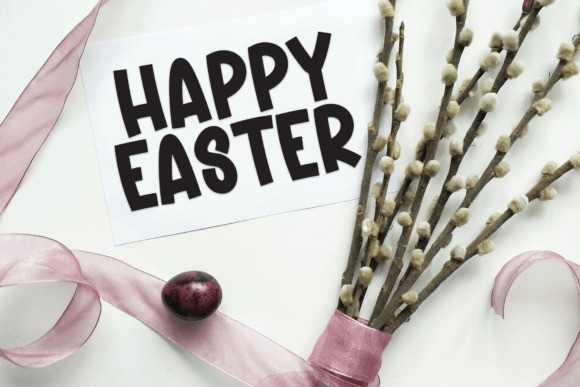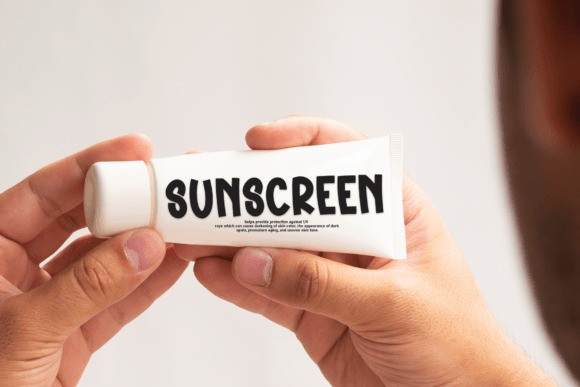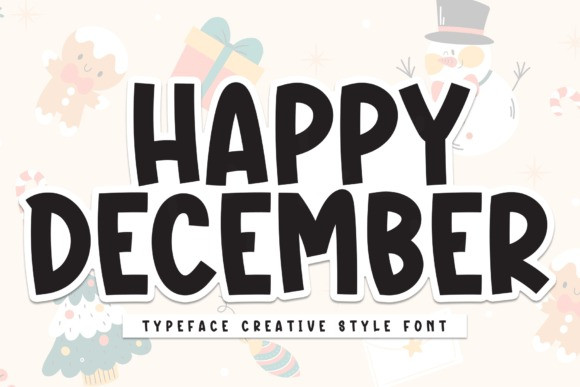
Happy December Font
Happy December Font is an enchanting handwritten font. This versatile font has a wide spectrum of applications ranging from greeting cards to headlines and is guaranteed to add a friendly feel to your next project.